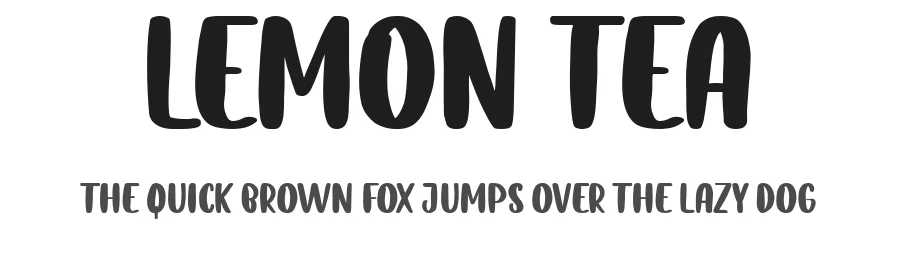
About Hello Sweet Rain Font
Hello Sweet Rain Font is a decorative font that shines as a display or heading face. Pair it with a clean sans-serif or serif font for body text — the contrast creates a clear hierarchy while the two styles stay balanced and easy to read.
Hello Sweet Rain Font